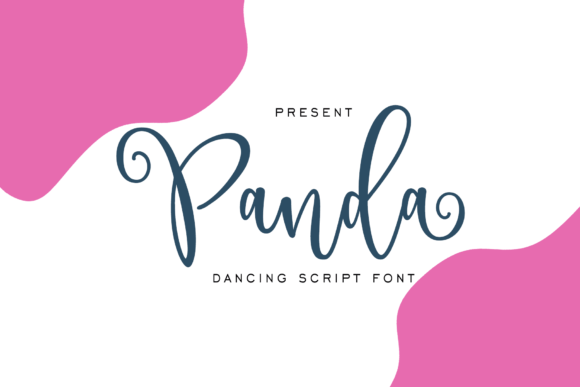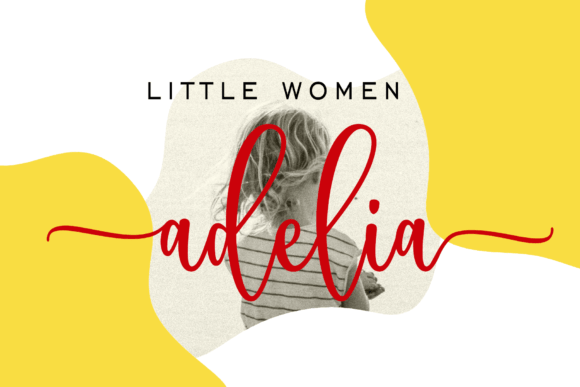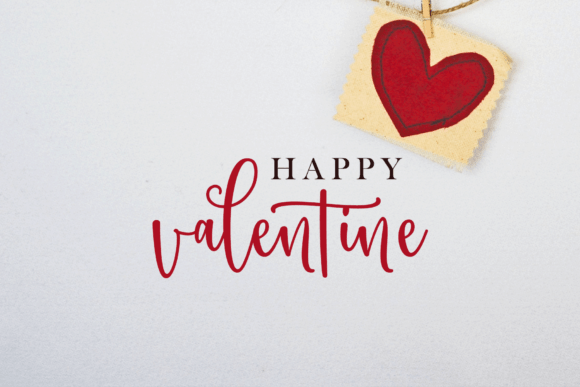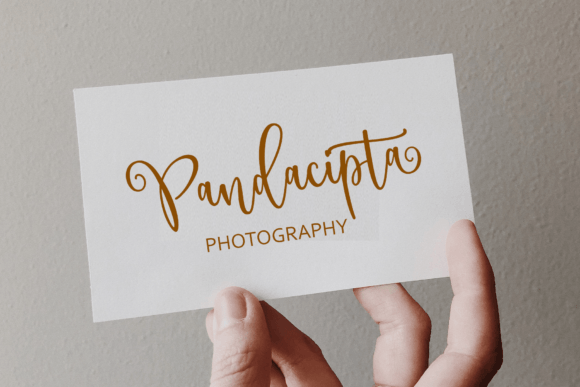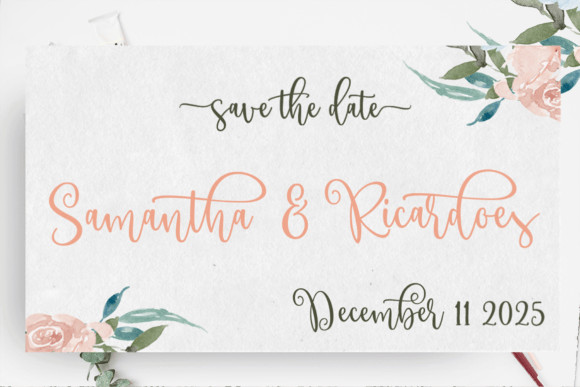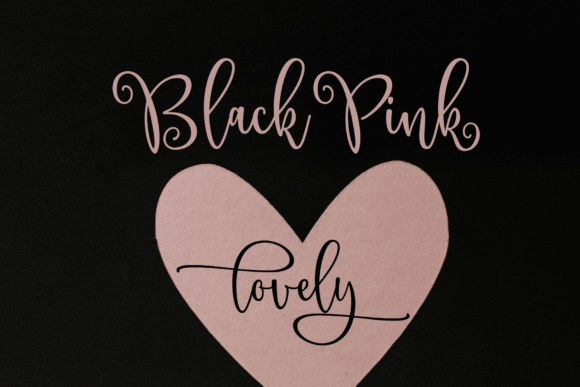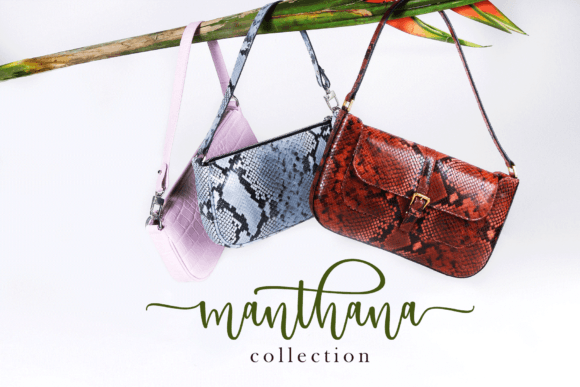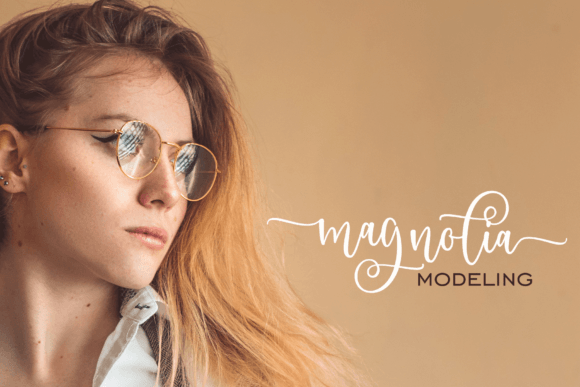
Panda Script Font
About Panda Script Font
“Panda Script” is a lovely and delicate script font that radiates elegance and sophistication. This font is designed to bring a beautiful and refreshing aesthetic to your designs, making it an excellent choice for those seeking a touch of elegance and class in their typographic compositions.
The charm of “Panda Script” lies in its ability to convey a sense of grace and refinement through its script characters. The font’s letters possess a delicate and elegant quality that adds a touch of sophistication and beauty to your designs. “Panda Script” effortlessly enhances the visual appeal of your projects, making them appear refined and timeless.
This font is well-suited for a wide range of creative applications where elegance and class are desired. Whether you’re working on branding materials that require a touch of sophistication, crafting wedding invitations that exude beauty and grace, designing stationery with a refreshing and elegant look, or enhancing your social media posts with an exquisite typography, “Panda Script” is a font that adds a sense of beauty and refinement to your projects.
Incorporating “Panda Script” into your design projects will likely result in outcomes that are not only lovely and delicate but also full of elegance and class. Its graceful style makes it an excellent choice for creating designs that radiate sophistication and timeless beauty. Embrace the elegant and refreshing aesthetic of “Panda Script” in your next project, and watch as it elevates the visual impact of your typography and overall design, making them truly beautiful and memorable.